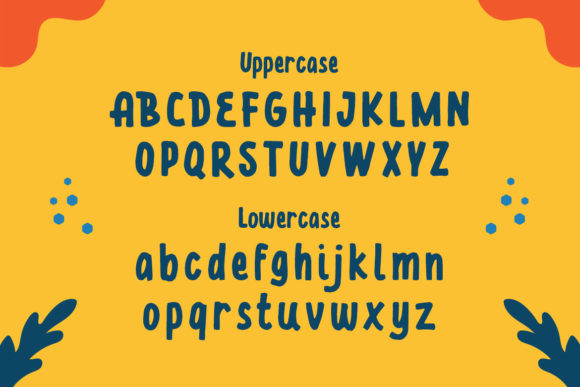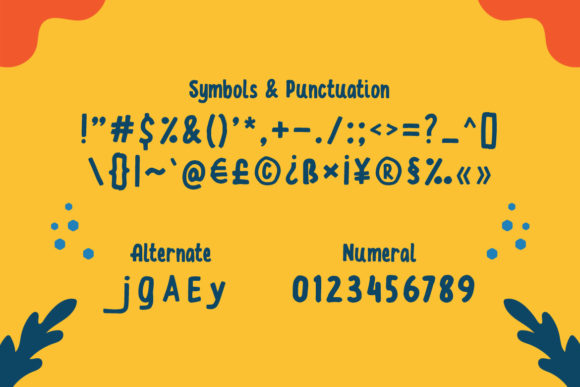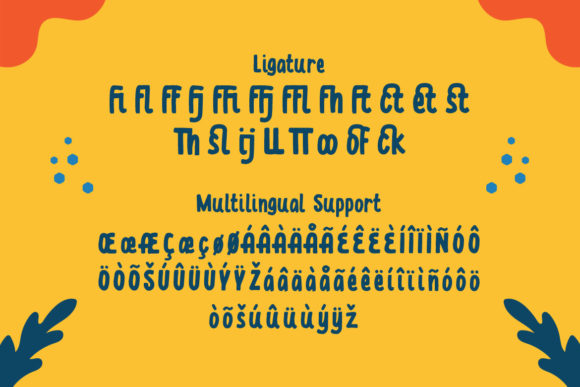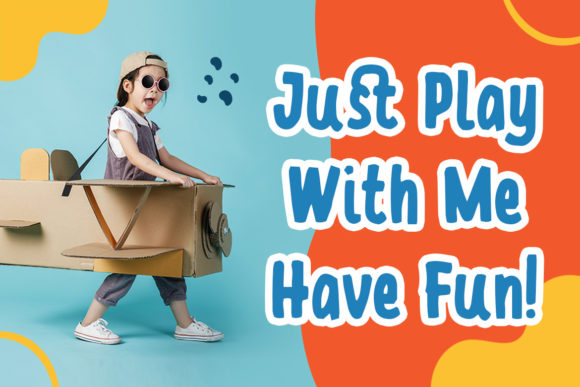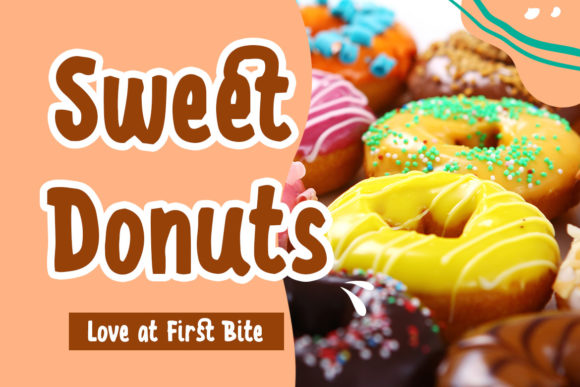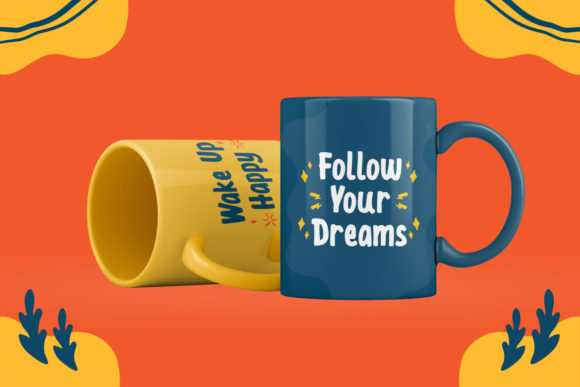
Introducing Baloba Font: The Perfect Choice for Playful Designs
Are you looking for a font that can add a touch of playfulness and friendliness to your designs? Look no further than Baloba Font! This clean, friendly, and playful display font is perfect for a variety of creative projects, from cartoon-related designs to children’s games and more. In this article, we’ll take a closer look at Baloba Font and explore its features, benefits, and uses.
What is Baloba Font?
Baloba Font is a modern display font designed to bring a sense of fun and approachability to your designs. Its clean lines, rounded edges, and playful curves make it an excellent choice for projects that require a lighthearted and youthful touch. Whether you’re designing a logo, creating a children’s book, or developing a game, Baloba Font is sure to impress.
Key Features of Baloba Font
- Clean and Friendly Design: Baloba Font features a clean and friendly design that is easy on the eyes. Its simple yet elegant lines make it perfect for a wide range of applications.
- Playful Curves: The font’s playful curves add a touch of whimsy and fun to your designs, making it ideal for projects that require a playful touch.
- Highly Versatile: Baloba Font is highly versatile and can be used for a variety of projects, from digital designs to print materials.
- Easily Readable: The font is designed to be easily readable, even at small sizes, making it perfect for body text and captions.
Benefits of Using Baloba Font
So, why choose Baloba Font for your next project? Here are just a few benefits of using this amazing font:
- Adds a Touch of Personality: Baloba Font adds a touch of personality to your designs, making them stand out from the crowd.
- Perfect for Children’s Designs: The font’s playful and friendly design makes it perfect for children’s books, games, and other designs.
- Easy to Pair with Other Fonts: Baloba Font is easy to pair with other fonts, making it a great addition to your font library.
- Supports Multiple Languages: The font supports multiple languages, making it a great choice for international projects.
Use Cases for Baloba Font
So, what can you use Baloba Font for? Here are just a few ideas to get you started:
- Cartoon-Related Designs: Baloba Font is perfect for cartoon-related designs, such as character logos, animations, and more.
- Children’s Games and Books: The font’s playful and friendly design makes it ideal for children’s games and books.
- Logos and Branding: Baloba Font can be used to create fun and playful logos and branding materials.
- Digital and Print Materials: The font can be used for a wide range of digital and print materials, including posters, flyers, and more.
In conclusion, Baloba Font is a clean, friendly, and playful display font that is perfect for a variety of creative projects. Its highly versatile design, easily readable curves, and playful lines make it an excellent choice for designers and crafters looking to add a touch of fun and personality to their designs. Whether you’re designing a children’s book, creating a game, or developing a logo, Baloba Font is sure to impress.